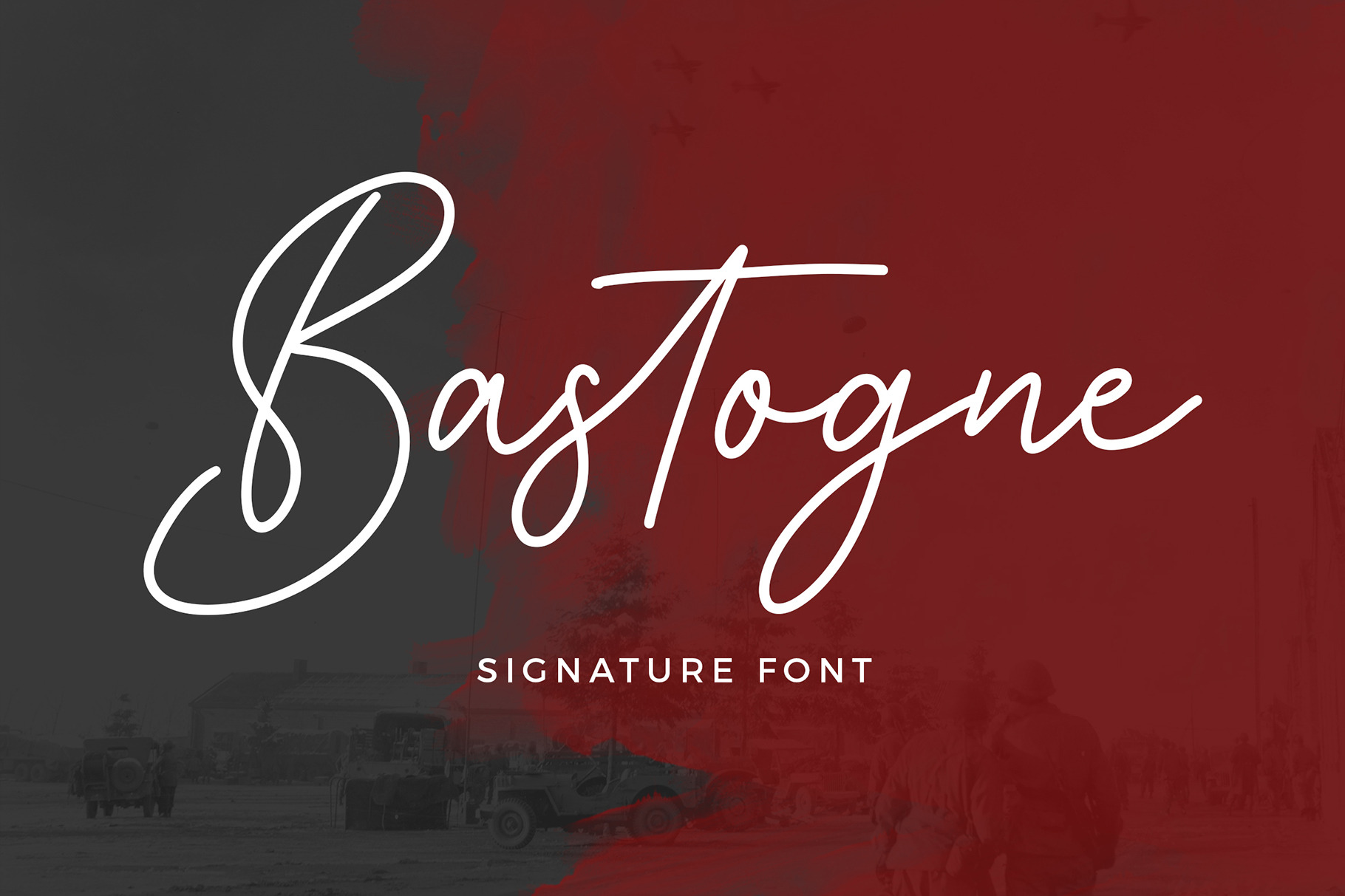
Bastogne Signature Font
Bastogne Signature Font is an exciting handwritten font with signature style. Fall in love with its elegantly playful nature!